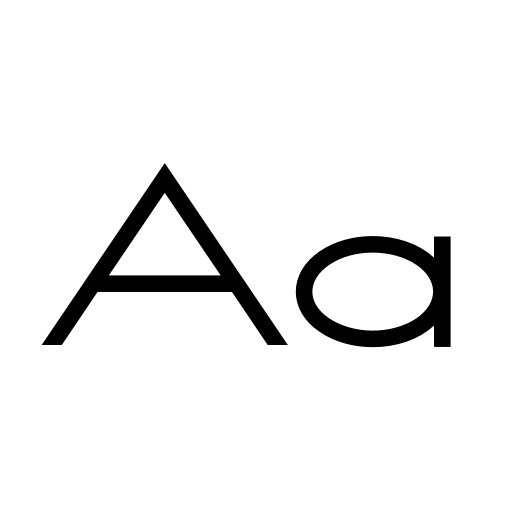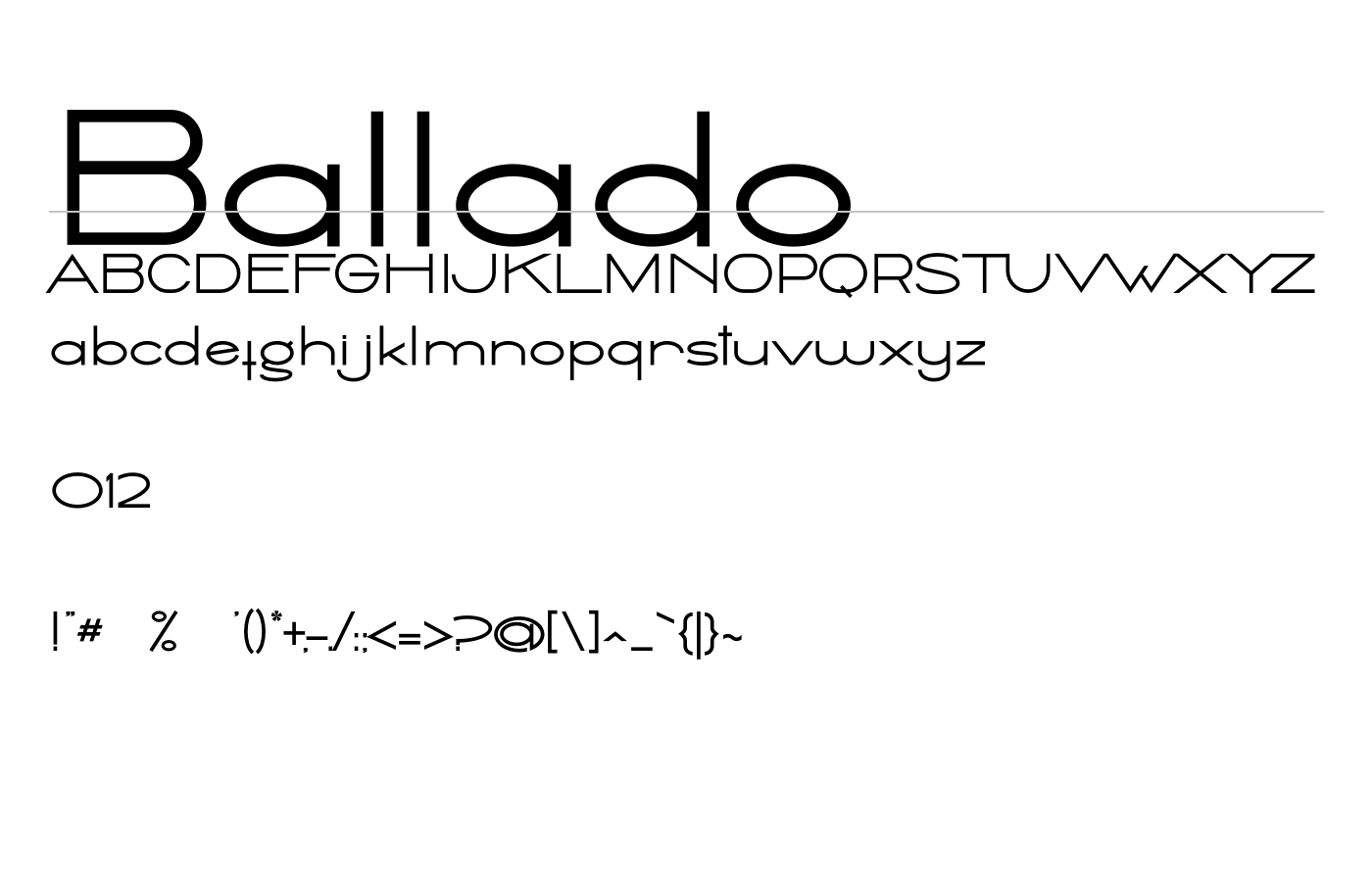
Ballado is a sleek, modern sans serif font characterized by its thin, geometric strokes and elegant, elongated letterforms. Its clean lines and distinctive shapes, such as the rounded lowercase “a” and the sharp, pointed terminals, make it ideal for contemporary branding, editorial headlines, and minimalist design projects that require a touch of sophistication and style. This font works well where a refined yet approachable aesthetic is desired, especially in fashion, luxury, and art-focused contexts.
Ballado Font
About Ballado Font